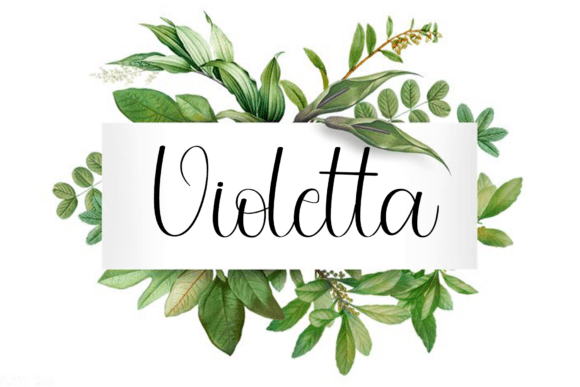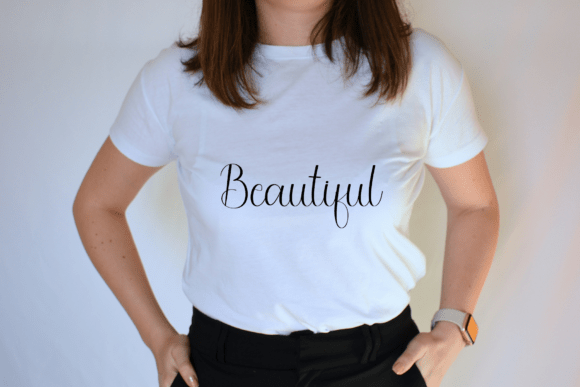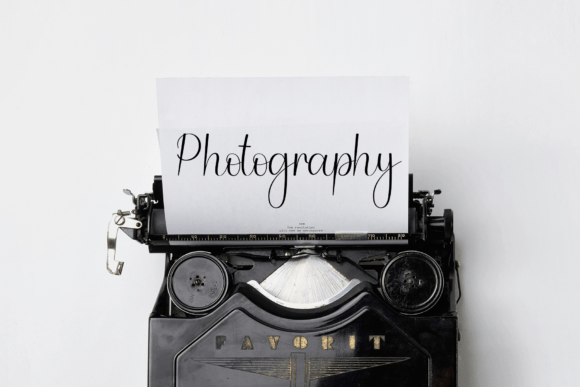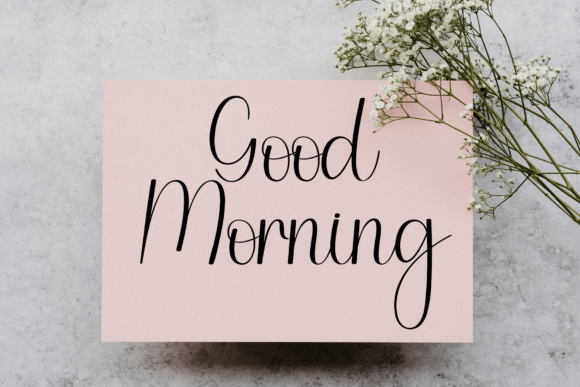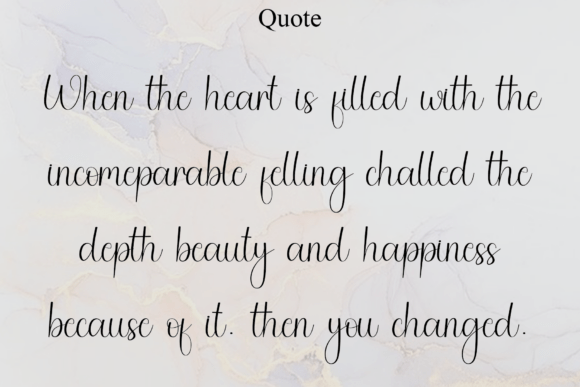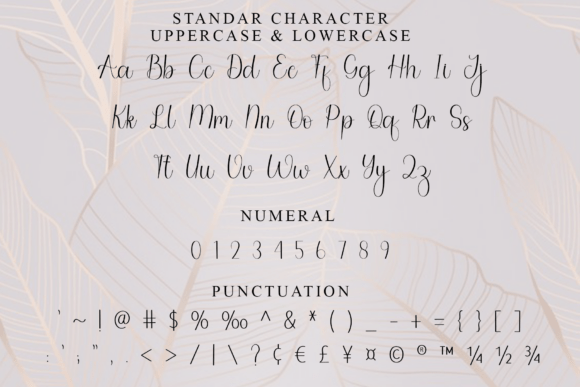
Gardening Font: Add a Touch of Enchantment to Your Designs
Are you looking for a font that captures the spirit of the holiday season? Do you want to add a touch of magic to your designs? Look no further than the Gardening Font! This festive and merry typeface is perfect for greeting cards, gift tags, and holiday-themed projects. With its decorative elements and whimsical flair, it brings a cheerful and nostalgic ambiance to your words.
What is Gardening Font?
Gardening Font is a beautifully crafted typeface that is designed to evoke the feeling of a winter wonderland. Its decorative elements, such as snowflakes, holly leaves, and berries, add a touch of enchantment to your designs. The font is perfect for designers and crafters who want to create holiday-themed projects that are both festive and fun.
Features of Gardening Font
So, what makes Gardening Font so special? Here are just a few of its features:
- Decorative elements: The font features a range of decorative elements, including snowflakes, holly leaves, and berries, that add a touch of magic to your designs.
- Whimsical flair: The font has a playful, whimsical feel that is perfect for holiday-themed projects.
- PUA encoded: The font is PUA encoded, which means you can access all of the amazing glyphs and ligatures with ease.
- Perfect for holiday projects: The font is perfect for greeting cards, gift tags, and holiday-themed projects.
Why Use Gardening Font?
So, why should you use Gardening Font for your holiday projects? Here are just a few reasons:
- Add a touch of magic: The font adds a touch of enchantment to your designs, making them perfect for holiday-themed projects.
- Stand out from the crowd: The font’s unique decorative elements and whimsical flair will help your designs stand out from the crowd.
- Easy to use: The font is PUA encoded, making it easy to access all of the amazing glyphs and ligatures.
- Perfect for designers and crafters: The font is perfect for designers and crafters who want to create holiday-themed projects that are both festive and fun.
Tips for Using Gardening Font
Here are a few tips for using Gardening Font in your holiday projects:
- Use it for headings: The font is perfect for headings and titles, adding a touch of magic to your designs.
- Pair it with other fonts: The font pairs well with other fonts, making it perfect for creating festive and fun designs.
- Experiment with colors: The font looks great in a range of colors, from traditional holiday colors like red and green to more modern colors like blue and silver.
In conclusion, Gardening Font is a beautifully crafted typeface that is perfect for holiday-themed projects. Its decorative elements and whimsical flair add a touch of enchantment to your designs, making them perfect for greeting cards, gift tags, and holiday-themed projects. With its PUA encoding, it’s easy to access all of the amazing glyphs and ligatures, making it a great choice for designers and crafters.
So why not give Gardening Font a try? With its festive and merry vibe, it’s sure to bring a touch of magic to your designs.